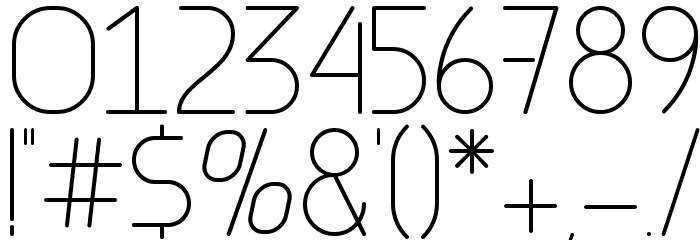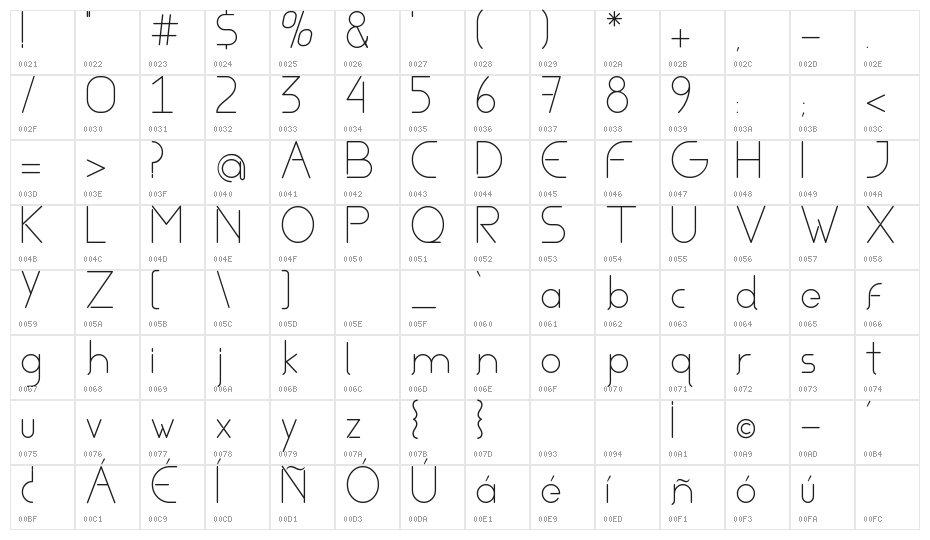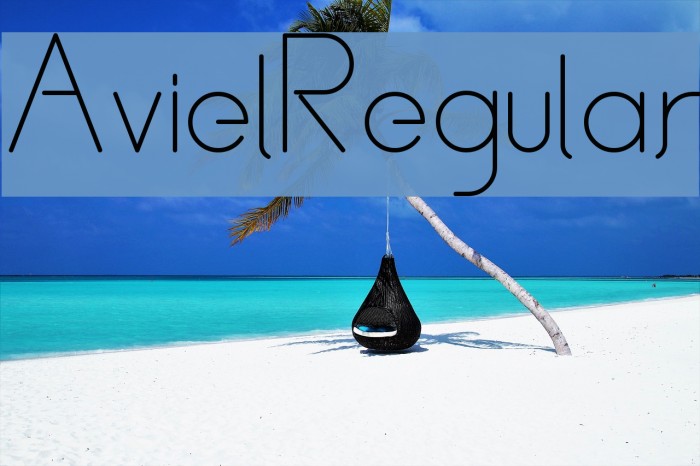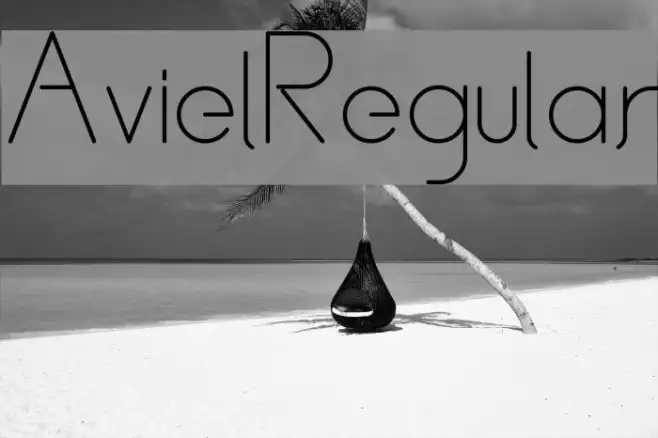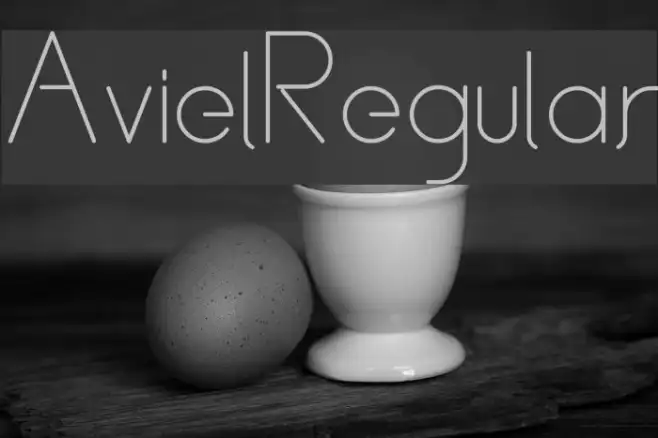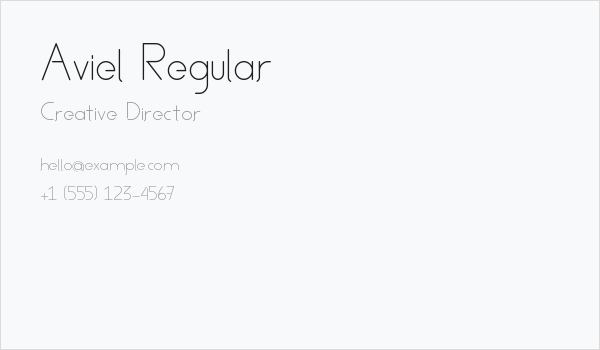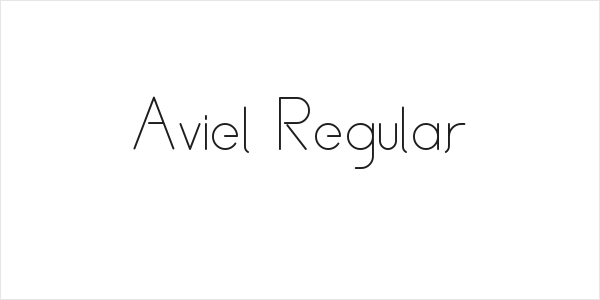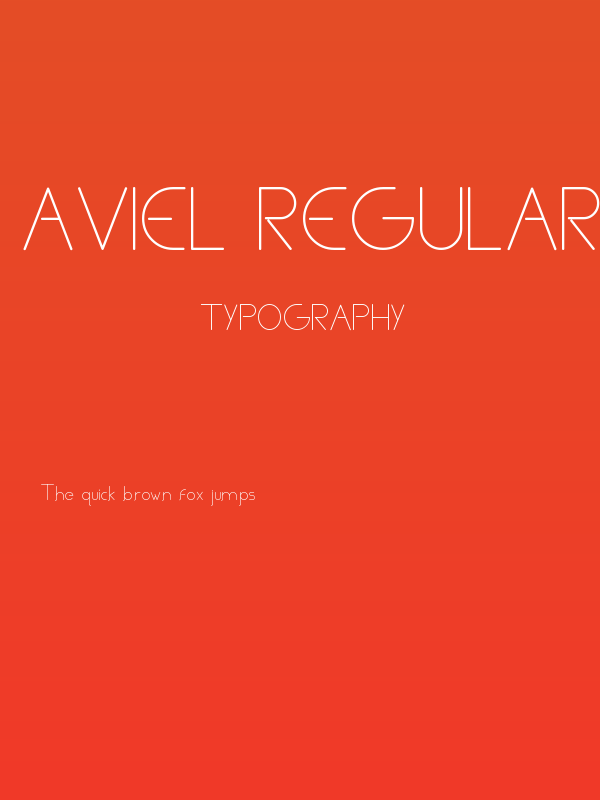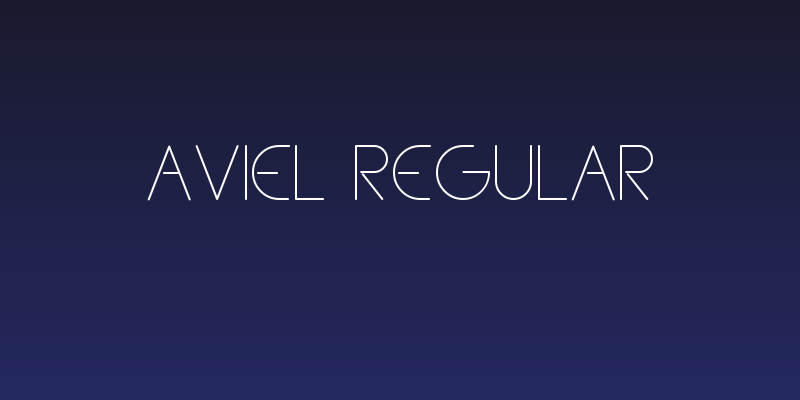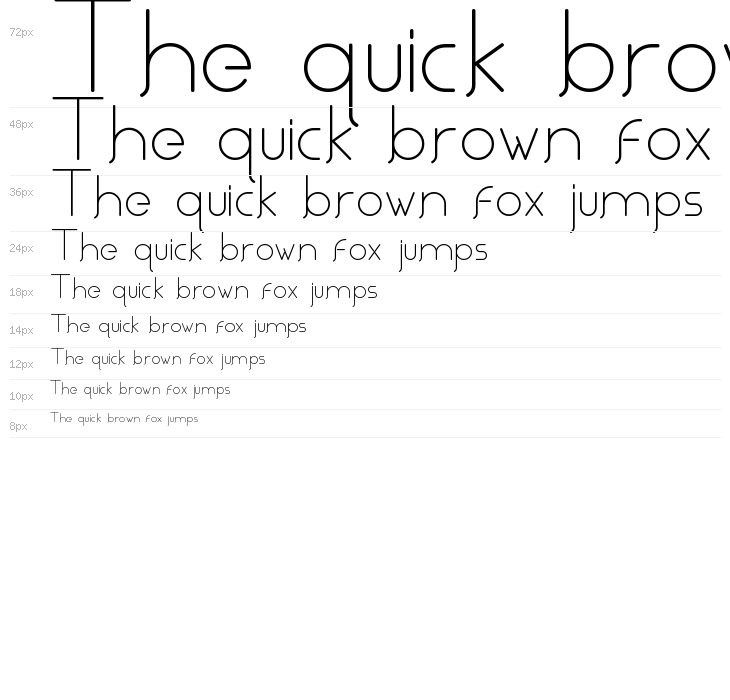
Aviel Regular Font
Aviel Regular Description
This font features a clean and modern sans-serif design with a geometric structure. The letters are characterized by their uniform stroke width, giving it a sleek and minimalist appearance. The uppercase and lowercase letters maintain a consistent style, with rounded edges that soften the overall look. The numerals are clear and easy to read, matching the style of the alphabet. Special characters are included, maintaining the same geometric and minimalist design. This font is versatile, suitable for a variety of design projects that require a contemporary and clean aesthetic.
| Proposed Projects | Ideal for branding, web design, advertising, and editorial projects that require a clean and modern look. |